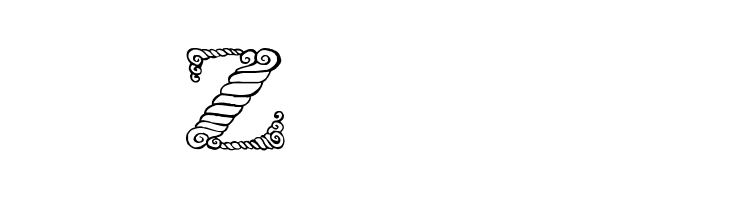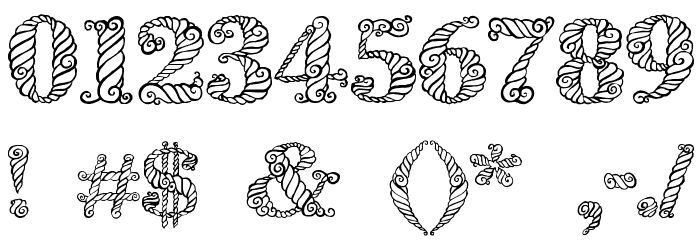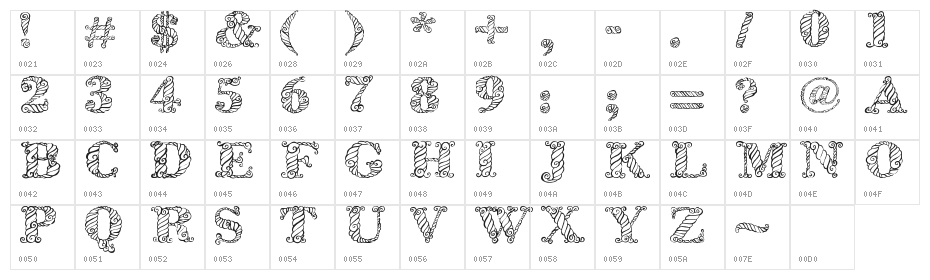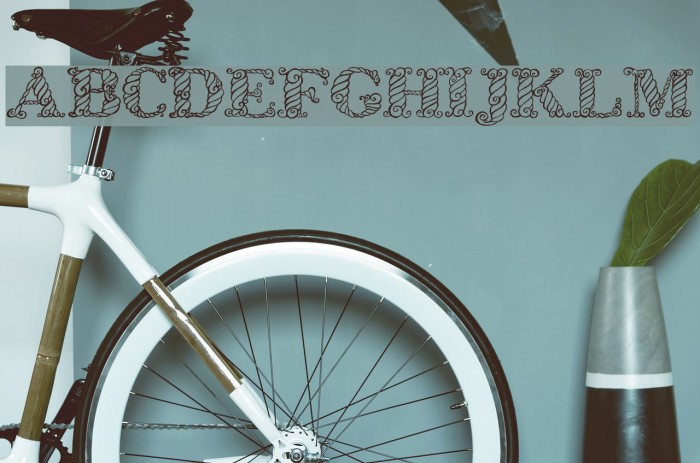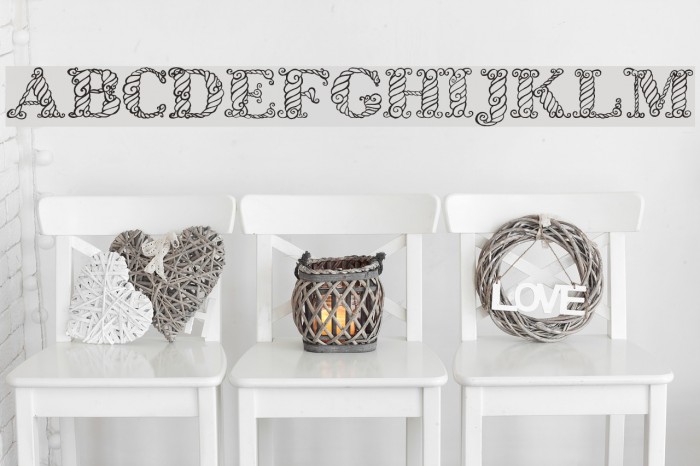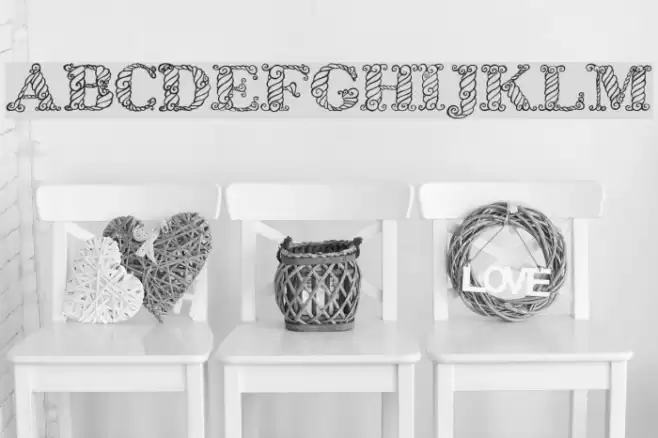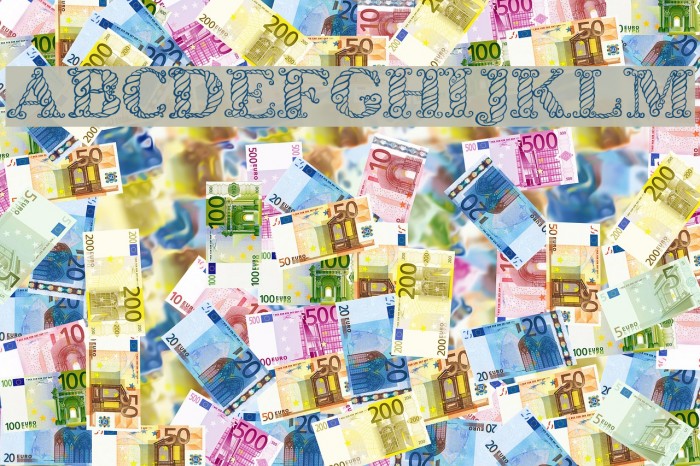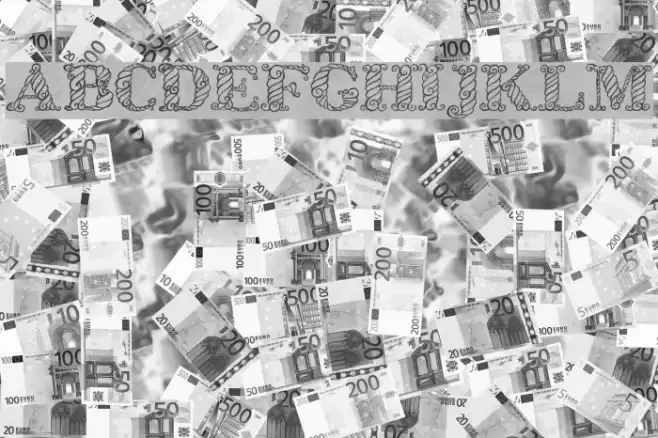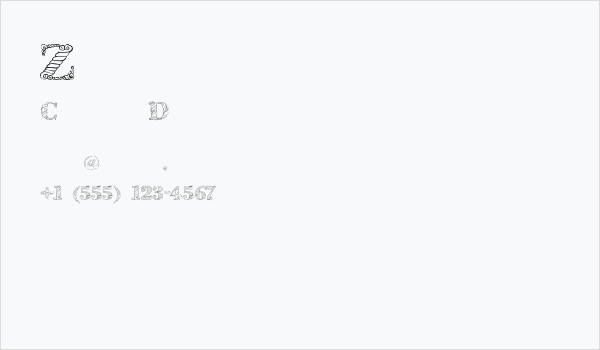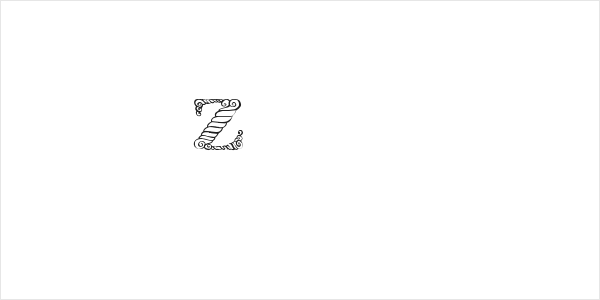
Zsynor Font
Zsynor Description
This font features an intricate and decorative design, characterized by its swirling, rope-like patterns that form each letter and number. The elaborate detailing gives it a unique, ornamental appearance, making it stand out as a decorative typeface. The uppercase letters are bold and prominent, while the numbers and special characters maintain the same ornate style. This font is not suitable for body text due to its complexity but excels in creating eye-catching headlines, logos, or artistic projects where a touch of elegance and creativity is desired.
Proposed ProjectsIdeal for artistic projects, logos, headlines, and decorative purposes.